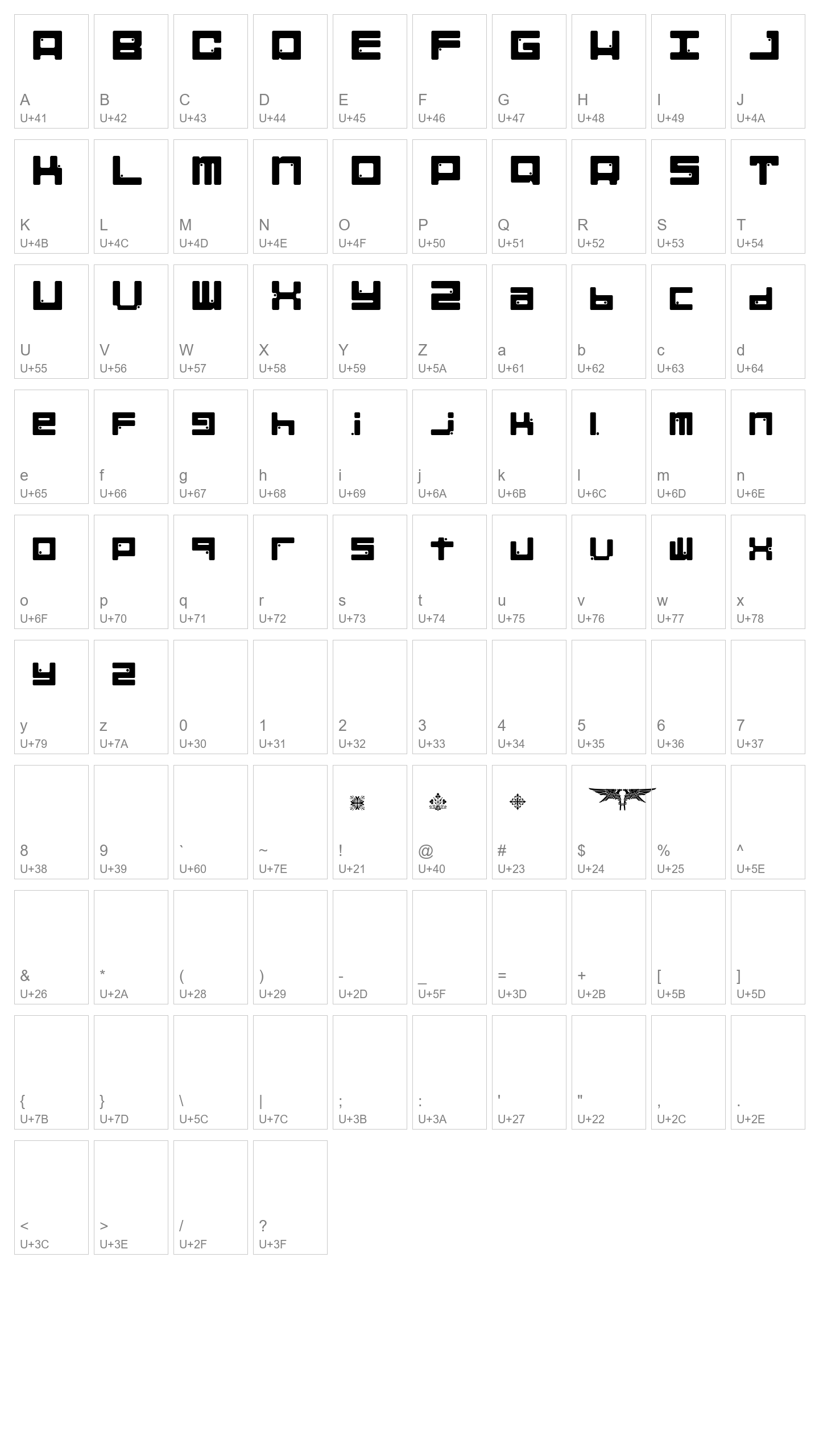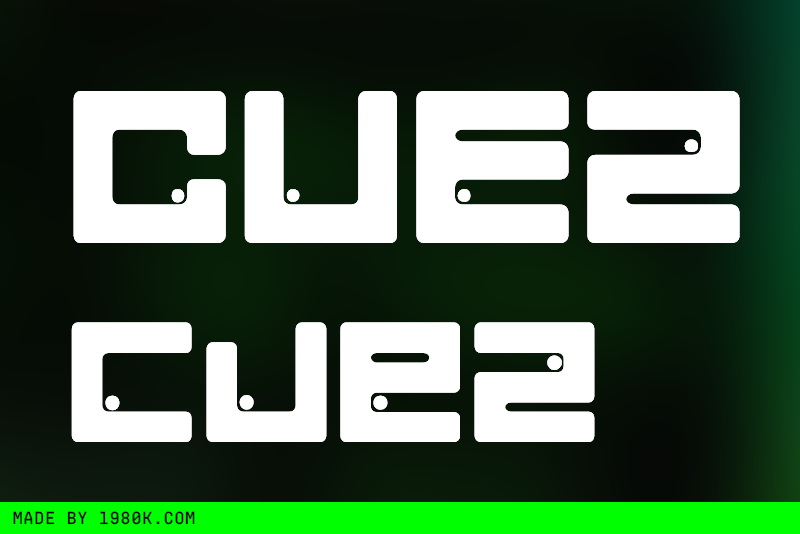
Cuez Ver5
Cuez_Ver5 was illustrated in Adobe Illustrator and then converted to active TTF (true type) font families in 2004. All cc0 and free to use.